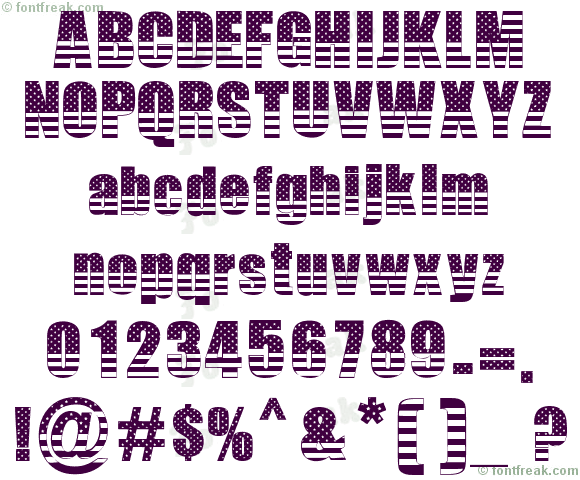
THE AMERICAN
Discover the unique charm of THE AMERICAN font, a striking typeface designed by woodcutter Manero. This font falls into the decorative category, characterized by its bold and distinctive appearance. The design is reminiscent of vintage Americana, featuring an eye-catching combination of stripes and dots that create a playful yet authoritative vibe. The stroke weight is substantial, giving the font a strong presence, while the even spacing ensures clarity and readability across various applications.
THE AMERICAN font is incredibly versatile and well-suited for numerous creative endeavors. It makes a fantastic choice for designing eye-catching movie posters, where its boldness can capture the viewer's attention. Additionally, this font shines in the realm of advertising, particularly for restaurant menus that aim to convey a fun, casual atmosphere. It's also ideal for summer event flyers or promotional materials that seek to embody a sense of patriotism or Americana. Graphic designers will find it a valuable asset for branding projects, especially for small businesses looking to establish a memorable identity.
Targeting graphic designers, small business owners, and content creators, THE AMERICAN font free download offers an accessible option for those seeking to enhance their projects with a unique typographic style. Its distinctive look not only sets it apart from standard fonts but also adds a layer of personality to any design. With its captivating visual elements and bold character, THE AMERICAN font stands out as a remarkable choice for anyone looking to infuse their work with a sense of style and originality. Embrace this font to elevate your projects and make a lasting impression.